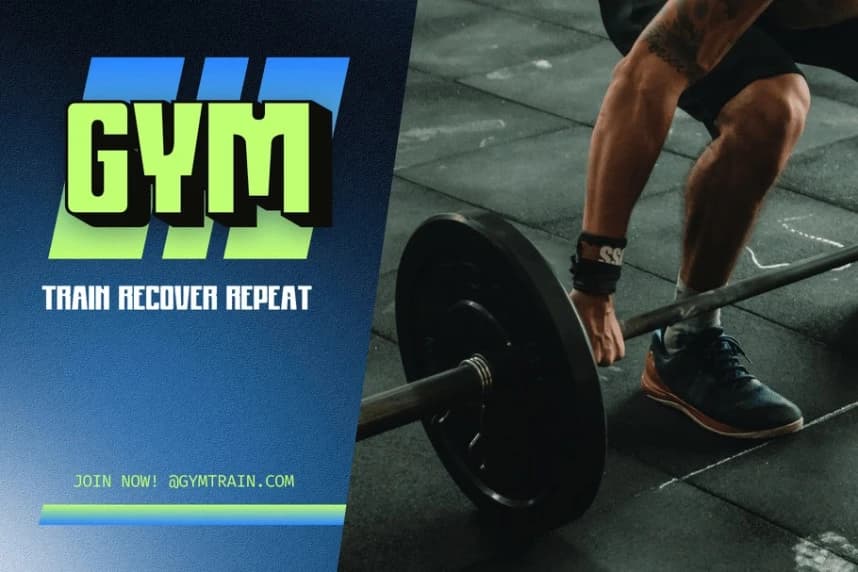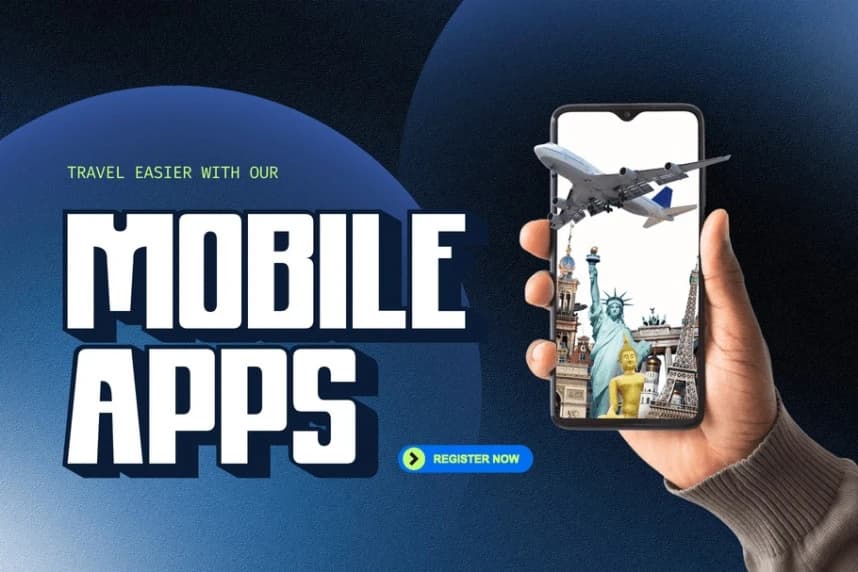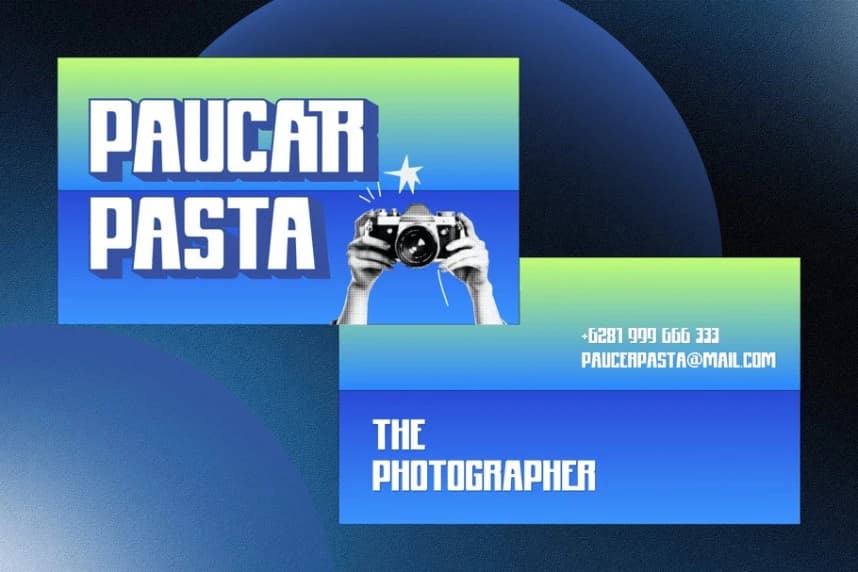
Vion Font
Vion Font, a modern condensed bold logo font crafted to deliver strong visual impact with clean proportions and contemporary character. Designed with a sleek and confident appearance, Vion is perfect for branding, logos, sports identity, fashion labels